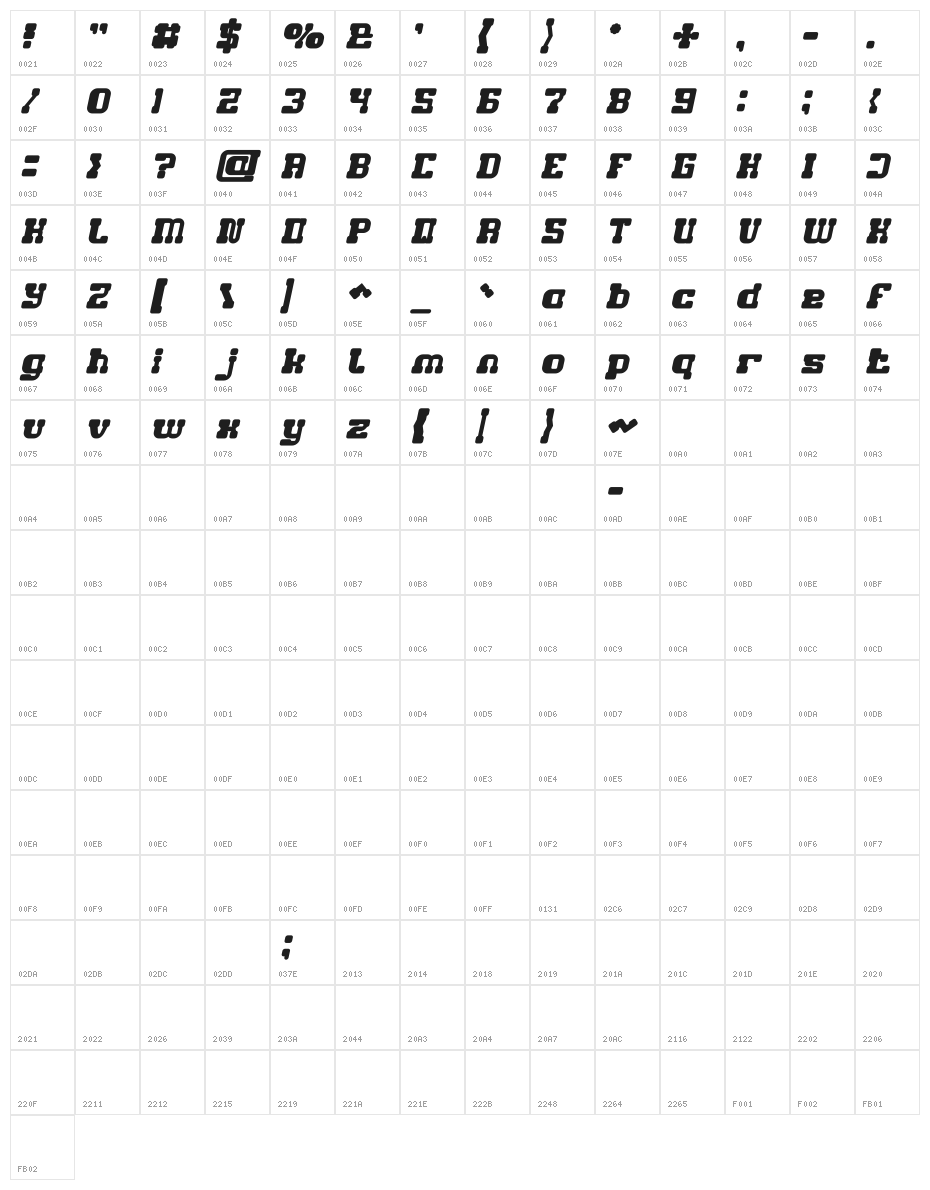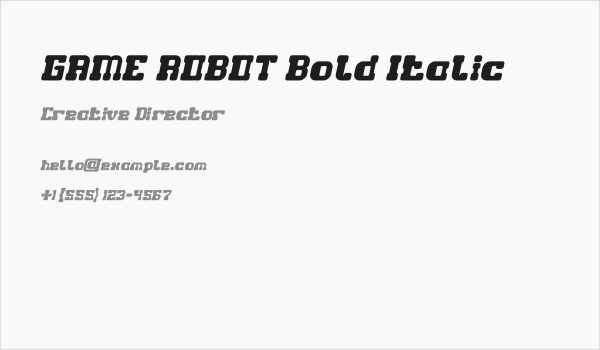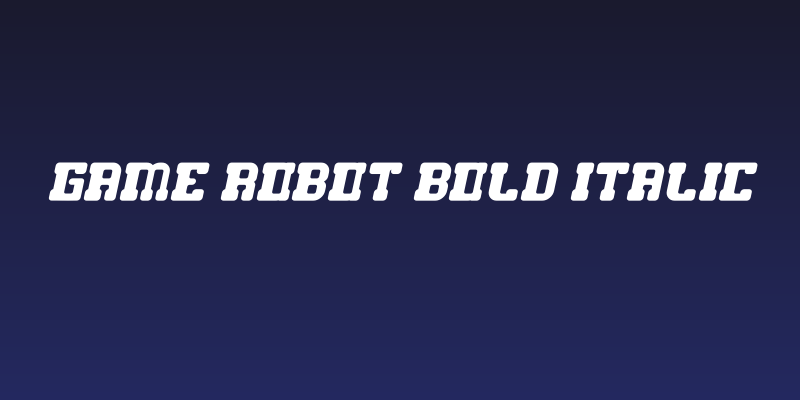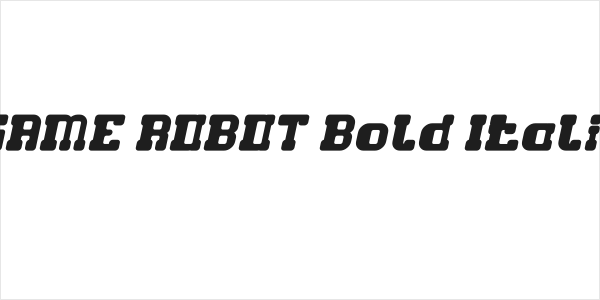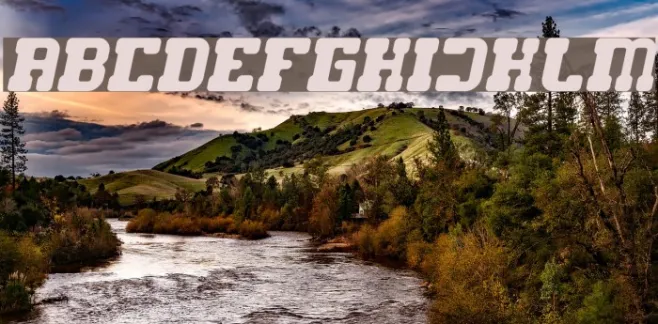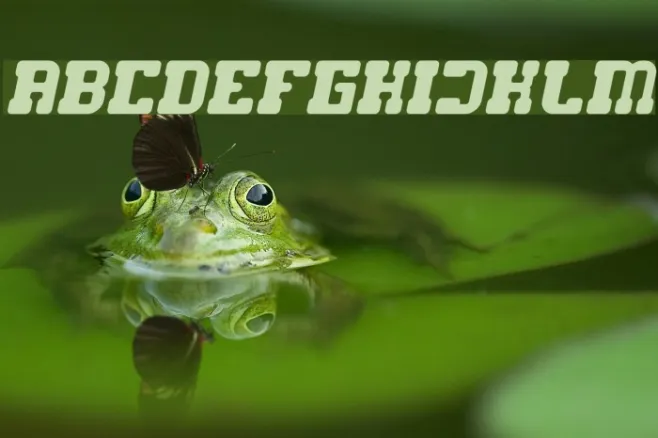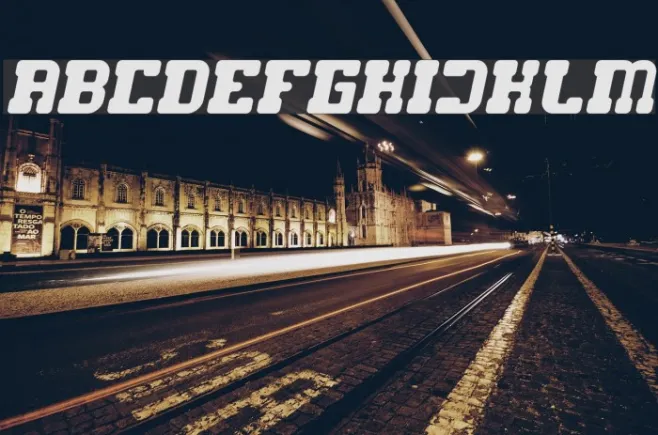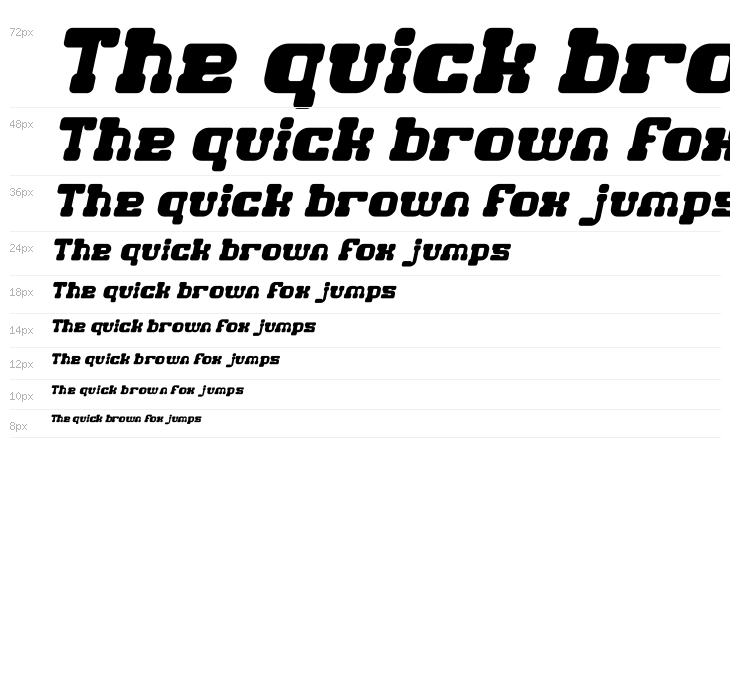
GAME ROBOT Bold Italic Font
GAME ROBOT Bold Italic Description
This font features a bold and italicized style with a futuristic and mechanical aesthetic. The characters are robust and have a distinct blocky appearance, with rounded edges that soften the overall look. The uppercase and lowercase letters maintain a consistent width, providing a uniform appearance across the text. The numbers and special characters follow the same design principles, ensuring cohesion throughout. This font's unique style makes it stand out, offering a modern twist on traditional bold fonts with its italic slant and mechanical influences.
| Proposed Projects | Ideal for video game titles, tech-related branding, futuristic posters, and sci-fi themed projects. |